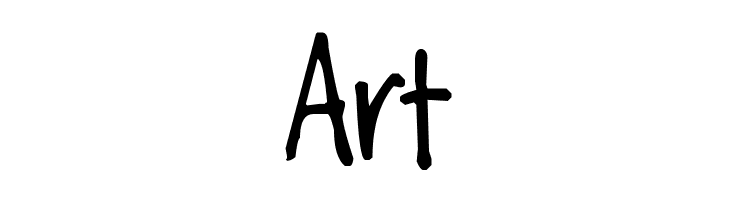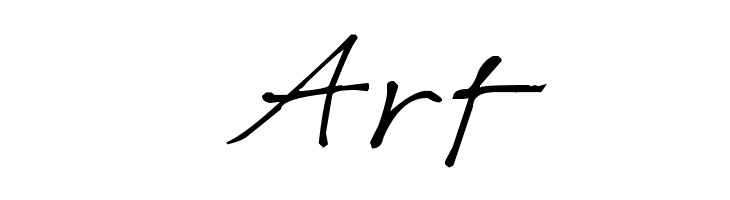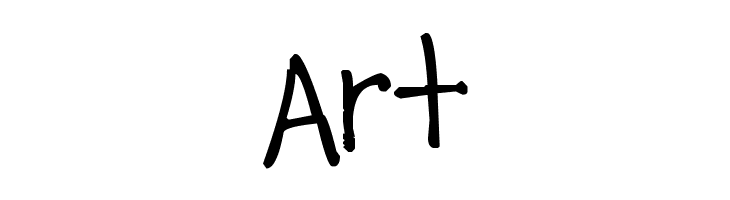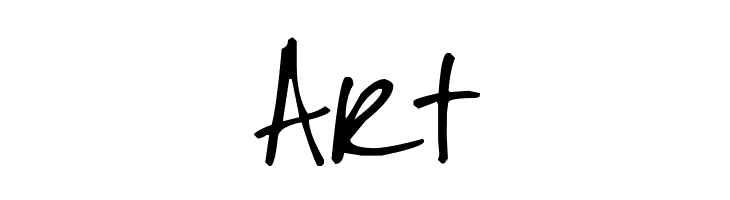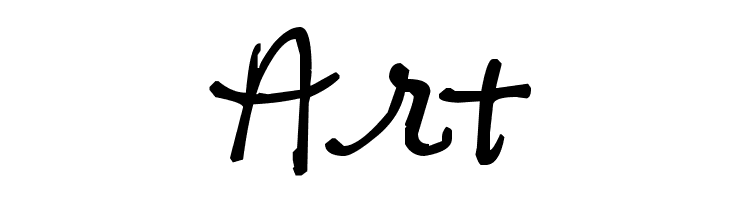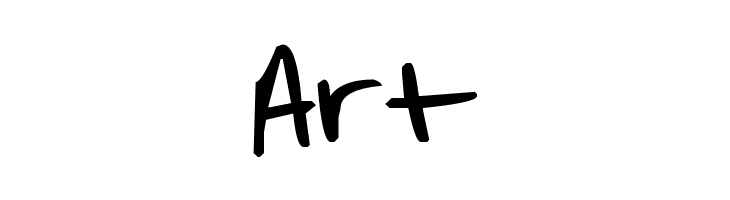
• Pea Nancy
A playful, casual handwritten font with bold, uneven strokes.
• Pea Neffer
A playful, handwritten font with a casual and informal style.
• Pea Nicole
A playful, handwritten font with bold, irregular strokes and a quirky, informal style.
• Pea Olson
A casual, handwritten font with fluid strokes and a playful style.
• Pea Prochazka
A casual, handwritten font with a playful and informal style.
• Pea Protani
A playful, handwritten font with bold strokes and a casual, creative vibe.
• Pea Rachael
A playful, bold handwritten font with a casual and friendly style.
• Pea Randa
A playful, casual handwritten font with smooth, flowing strokes.
• Pea Sara
A playful, casual handwritten font with fluid strokes and a personal touch.
• Pea Sara Script
A playful, handwritten script with flowing, connected letters and a casual aesthetic.